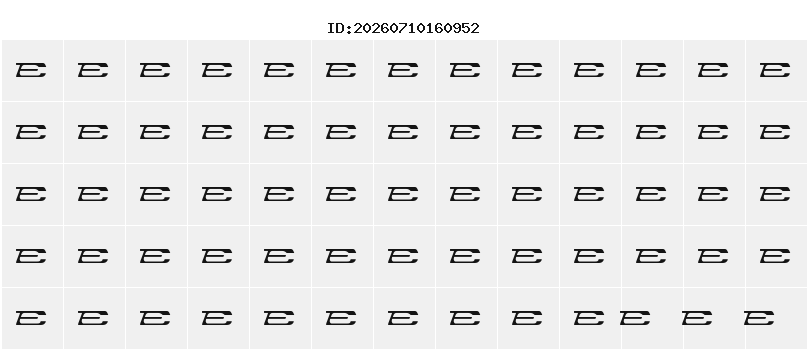
garth Preview
About garth.ttf
garth.ttf is a modern, elegant sans-serif font designed for ultimate readability and visual harmony. Perfect for branding, headlines, web design, and print materials.